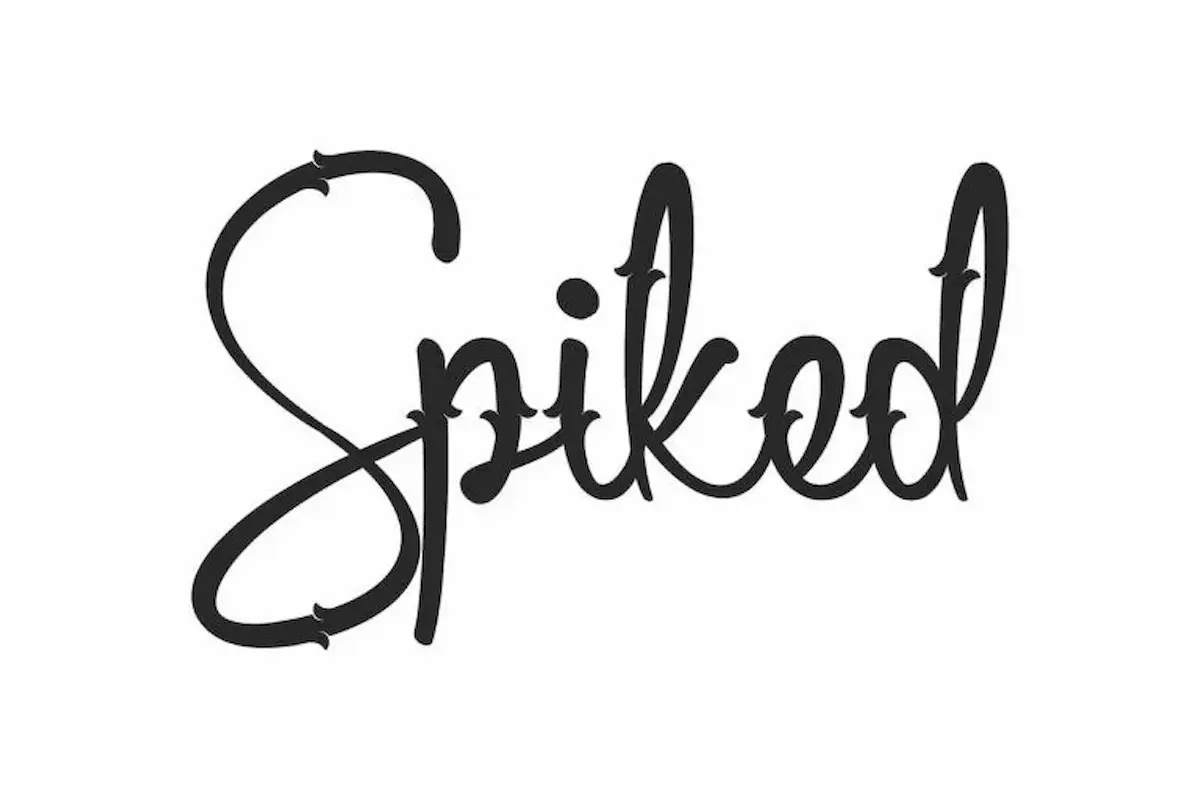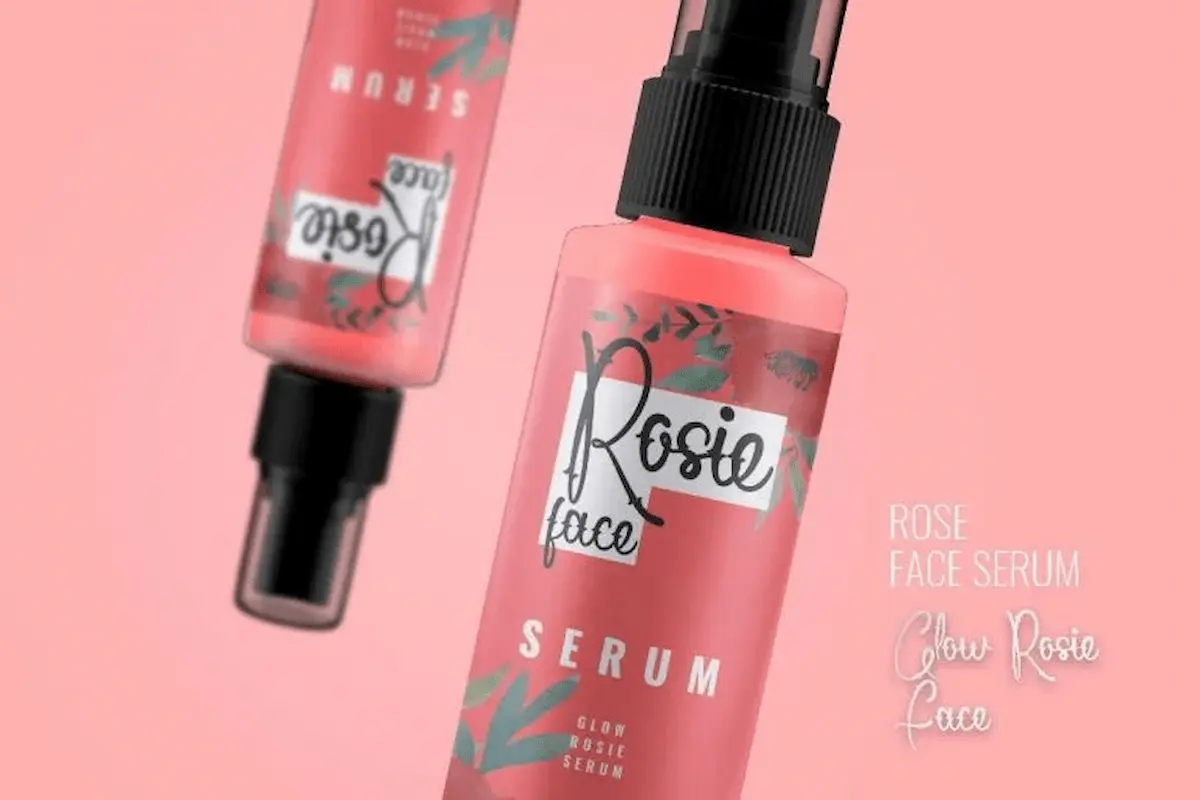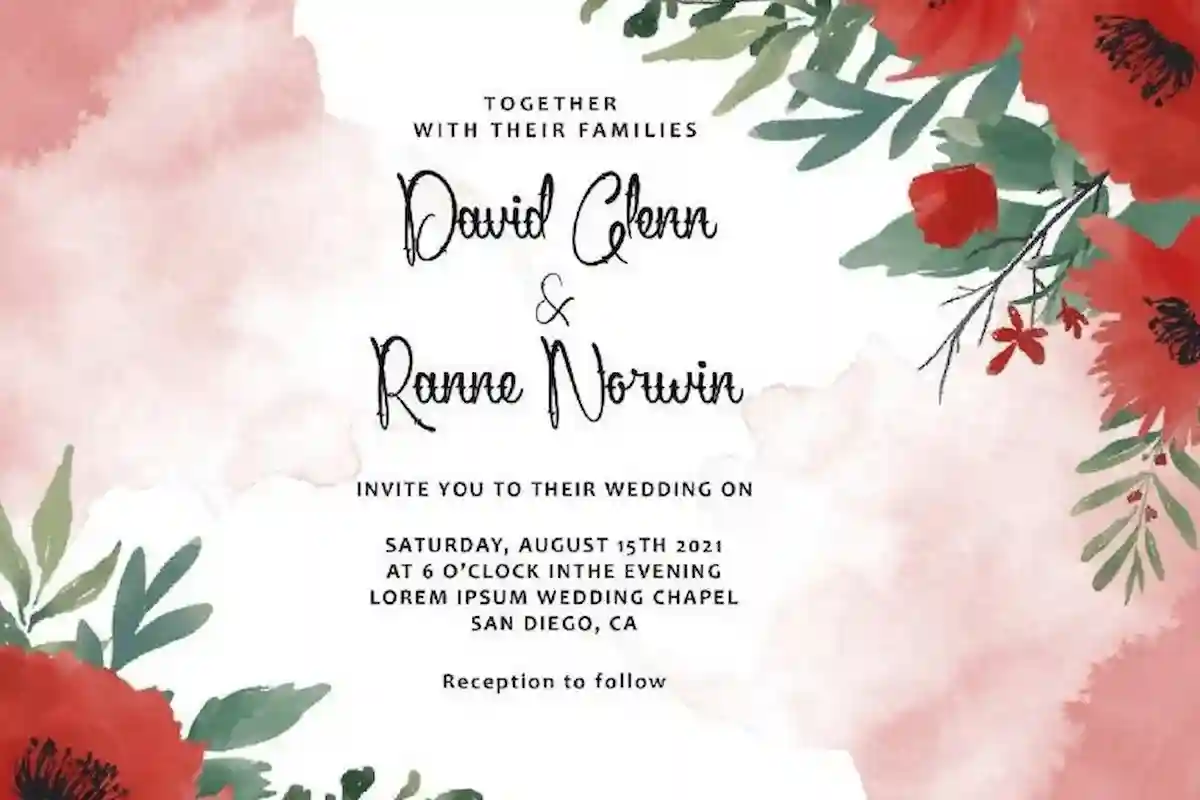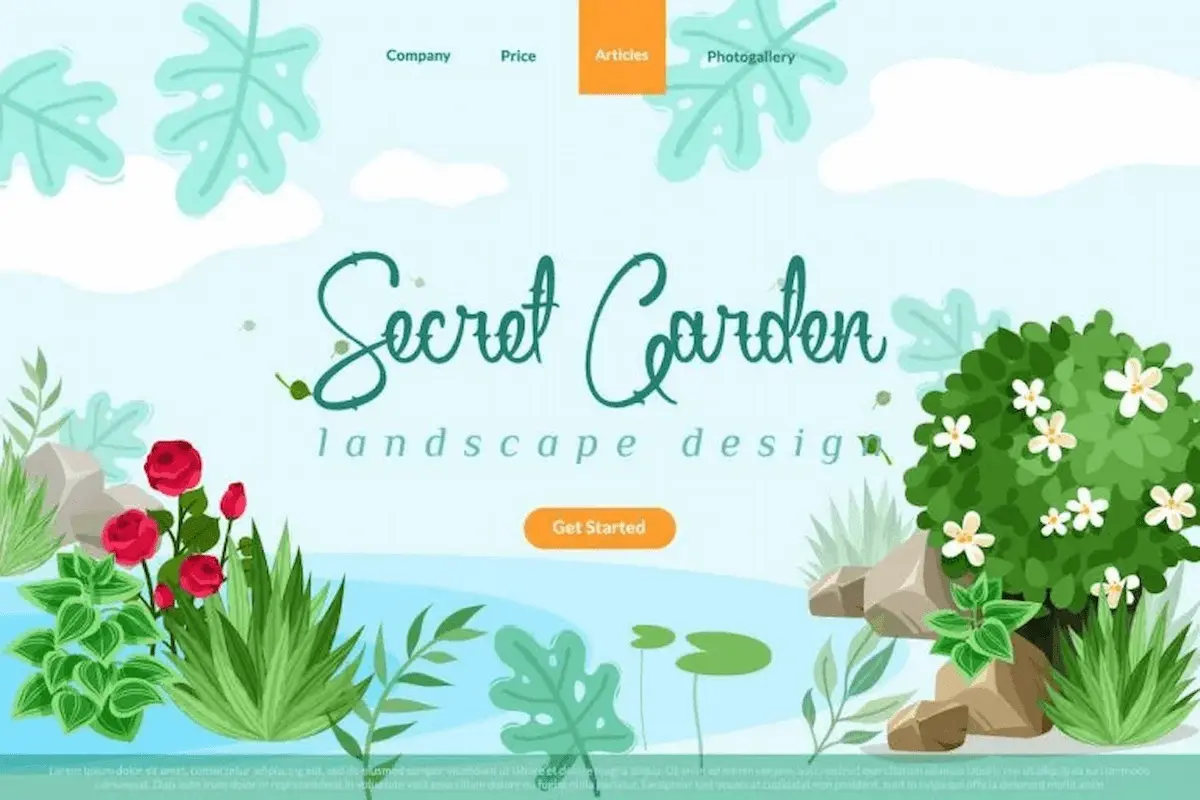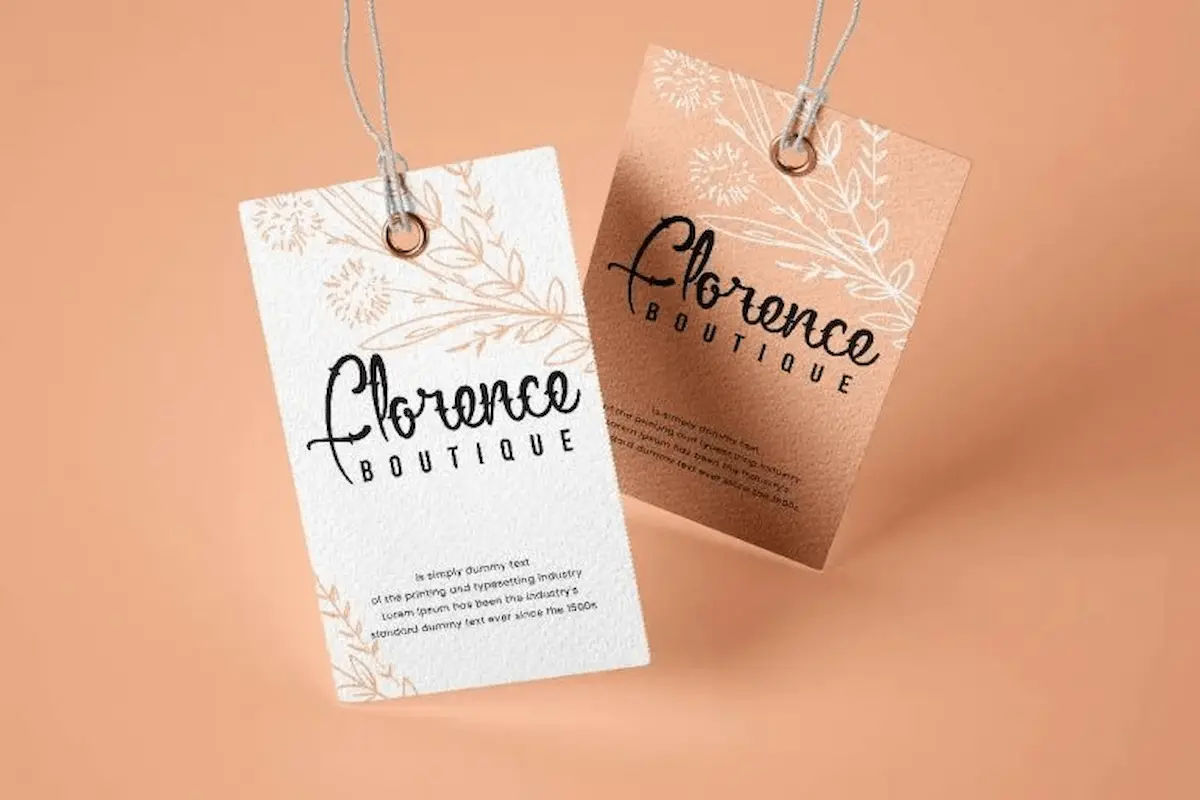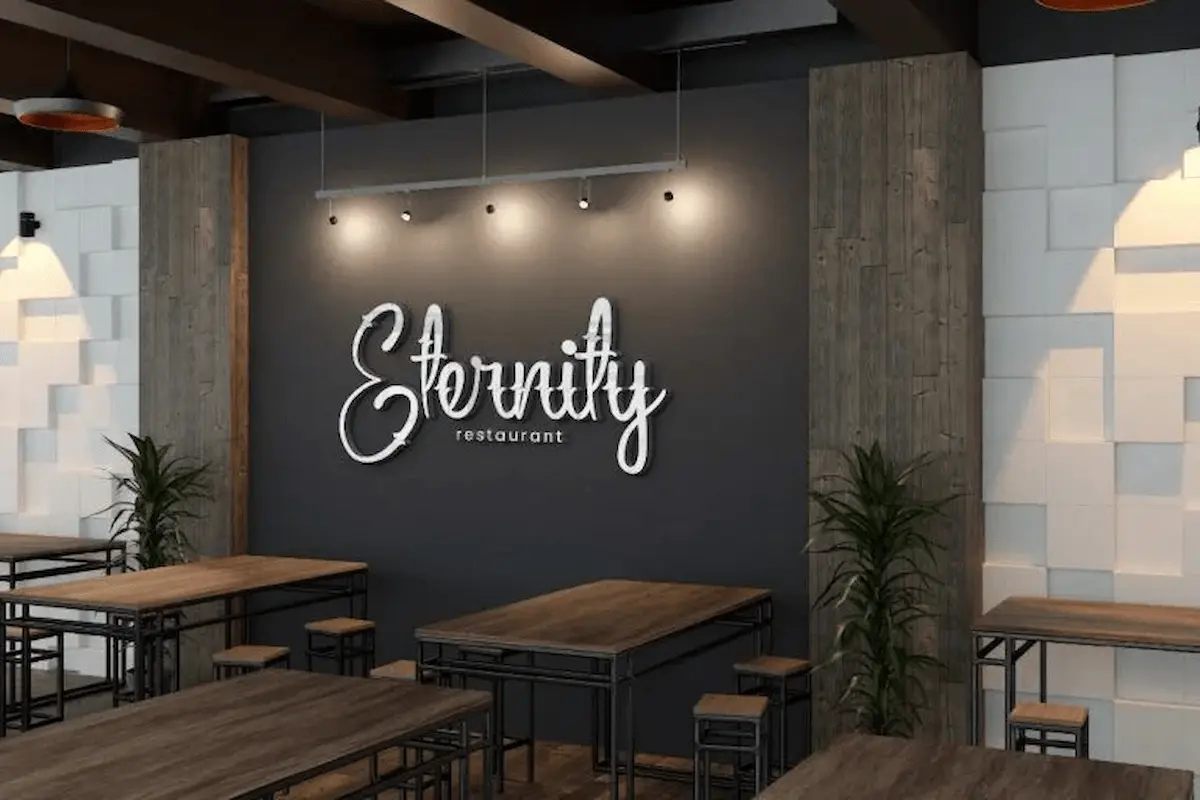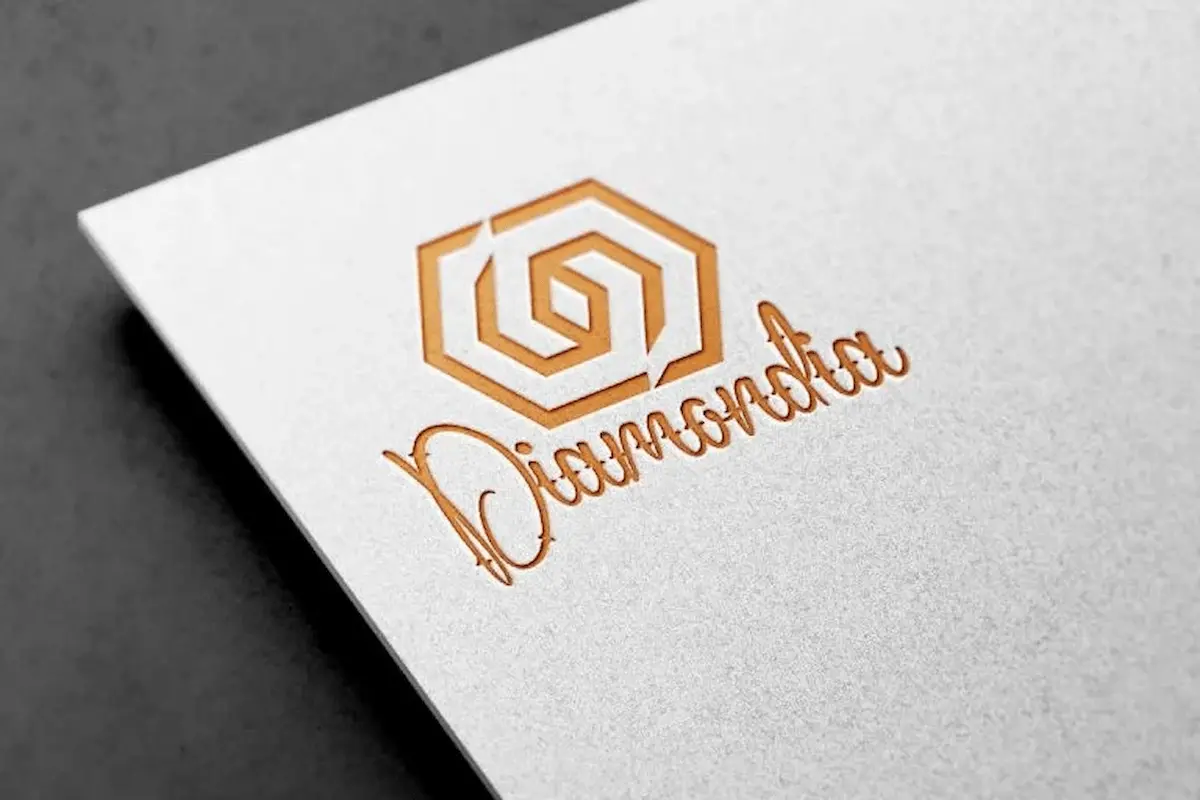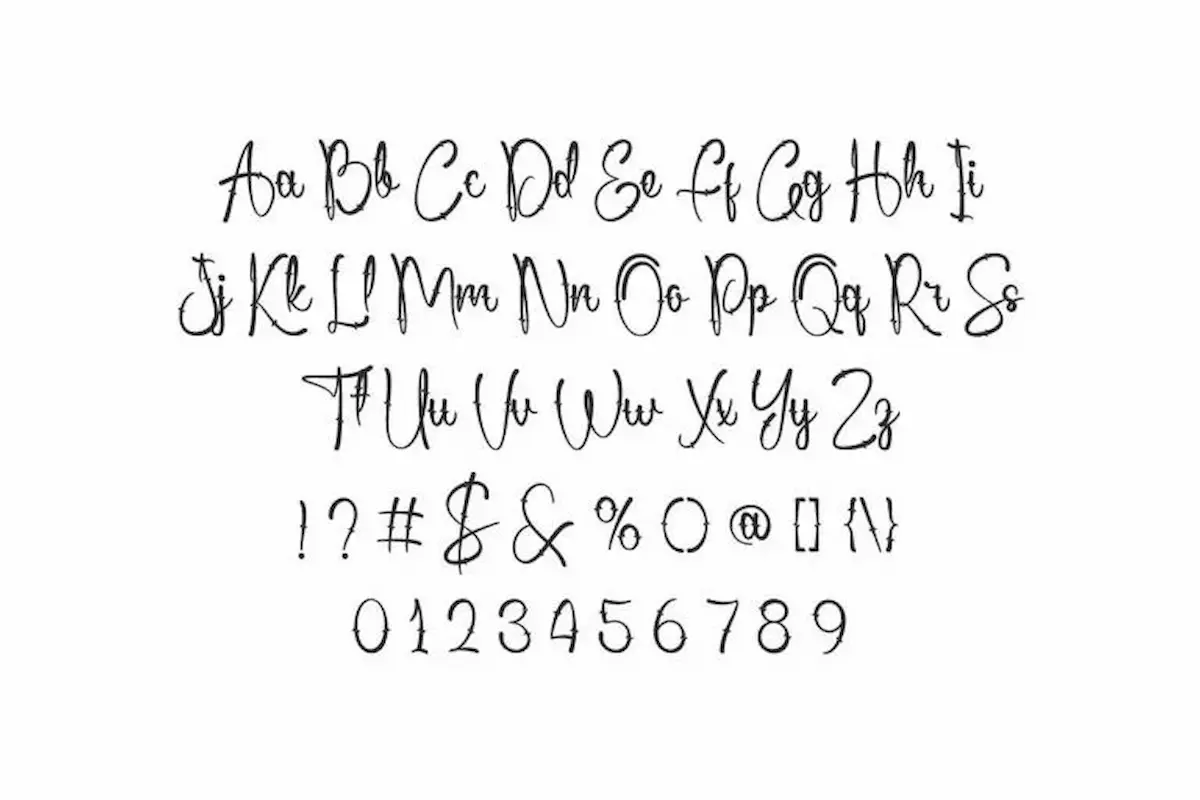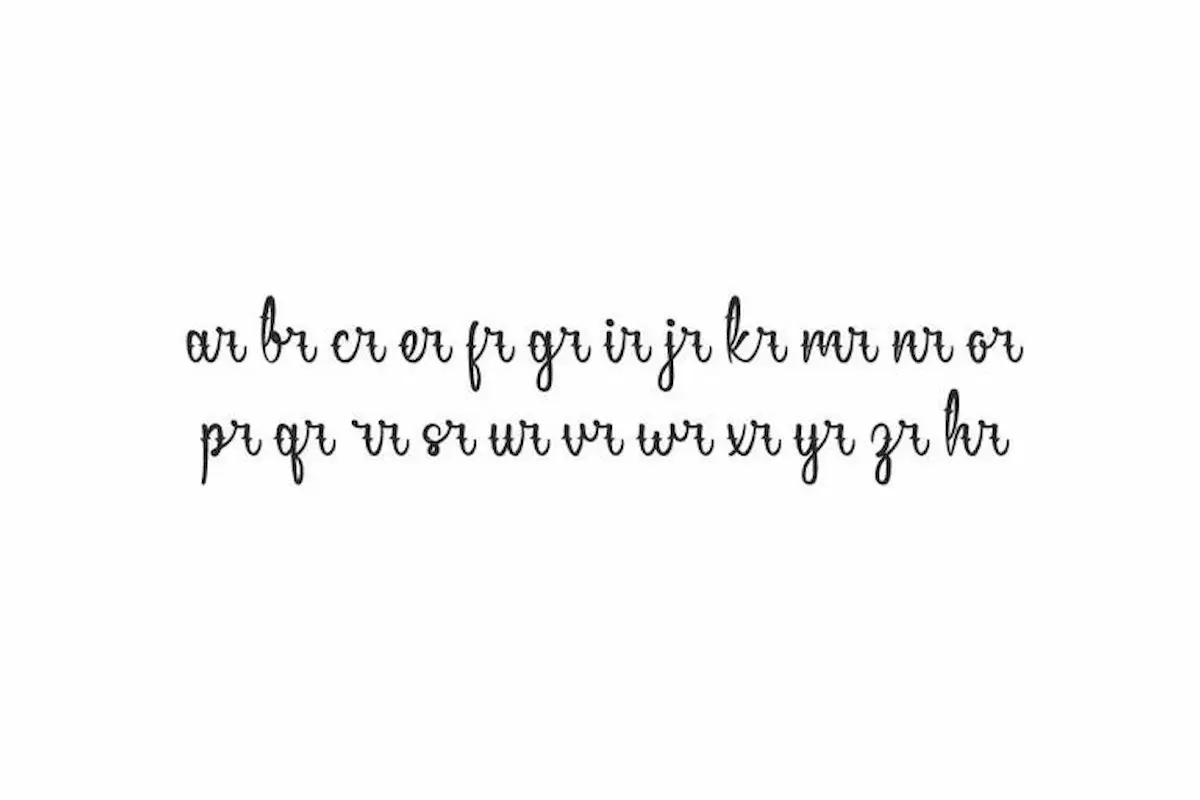
Spiked Font
Spiked Font is a handwriting display font inspired from vintage circus show. Made in Indonesia, great for events, restaurants, movies etc
About Spiked Font
Spiked Font is a handwriting display font inspired by vintage circus shows. You can try this playful font by typing your own text below. Please note: the font below is a demo version. Some characters will not appear in this preview. This is normal for demo fonts and is meant to give you a taste of the style before you use the complete version. In the full package, every letter, number, and symbol is included for complete creative freedom.
Spiked Font was first created in 2021. It is decorated with unique “spike” shapes taken from old circus posters and vintage show designs. Every letter is hand-drawn to combine style, personality, and readability. This vintage circus font offers a fun handwritten feel with bold details. It captures the excitement of classic fairgrounds while staying modern enough for today’s design needs.
Uses and Applications
Spiked Font works well for branding, decorative text, posters, flyers, video titles, and invitations. It is also ideal for packaging, merchandise, social media graphics, and event signage. This handwriting display font suits industries such as houseware, cosmetics, events, cafés, movies, and schools. It works in both modern and retro designs, offering flexibility for designers who like to experiment with style.
Compatibility and Features
Why Choose Spiked Font
If you need a playful and unique handwriting display font, Spiked Font is a great choice. It brings a bold, vintage-inspired look to any project and makes your text stand out from the crowd. Whether you are designing for personal use, client work, or a major branding campaign, this retro typeface will add energy, style, and a memorable touch. Please do contact us if you have any question or query.